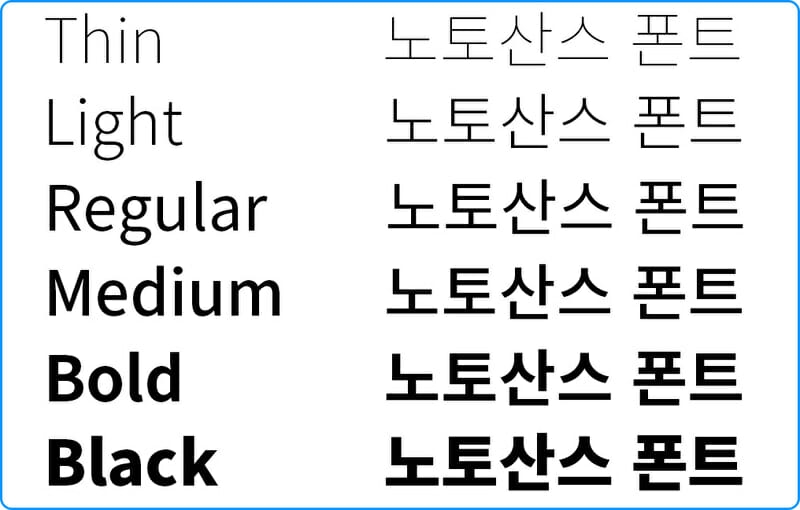
Noto Sans Korean is a free, open-source font that supports the Korean language. It is designed to be clear, readable, and accessible, and it is available in a variety of weights and styles. Noto Sans Korean is a great choice for websites, apps, and other digital products that need to support the Korean language.